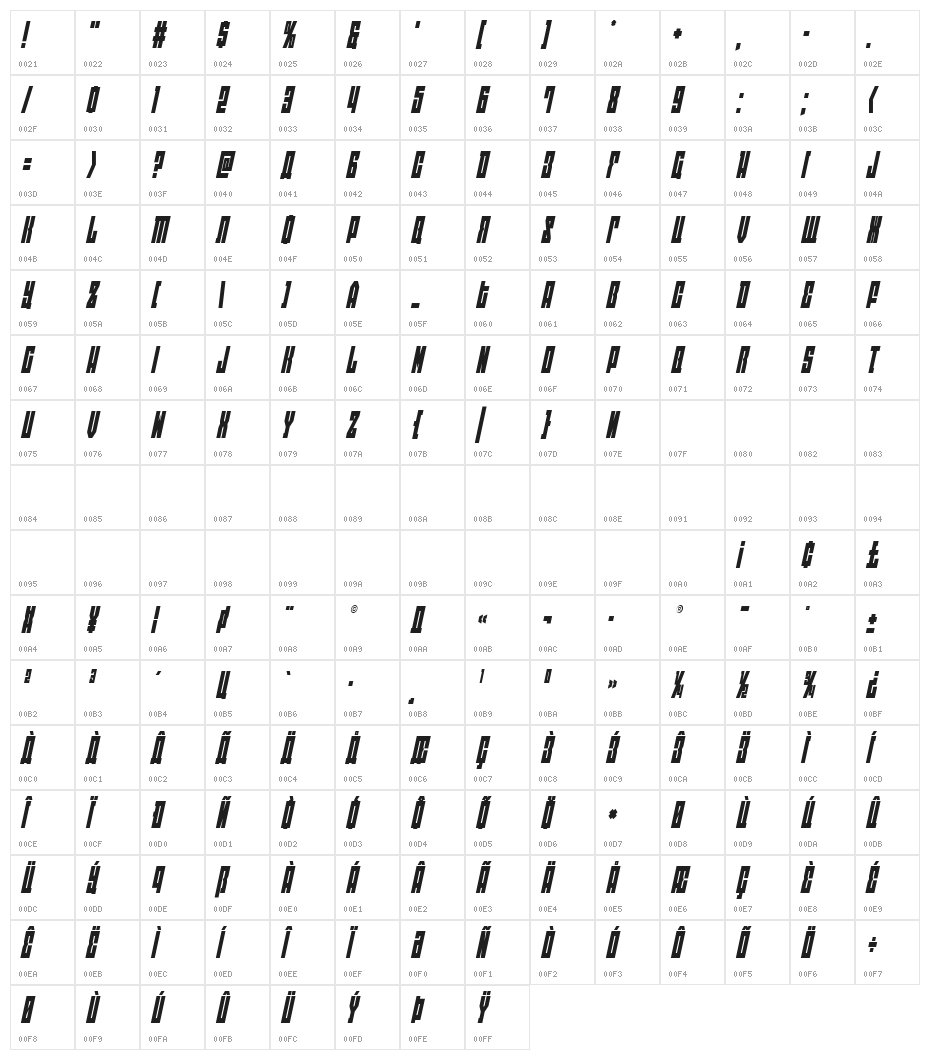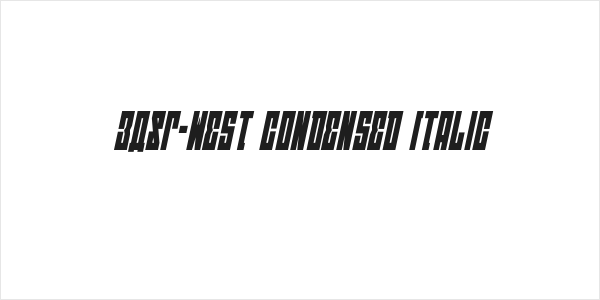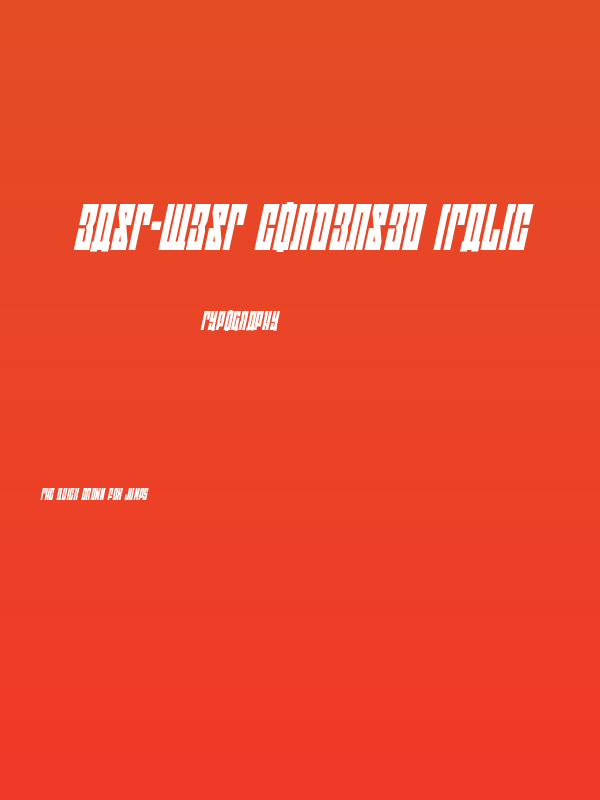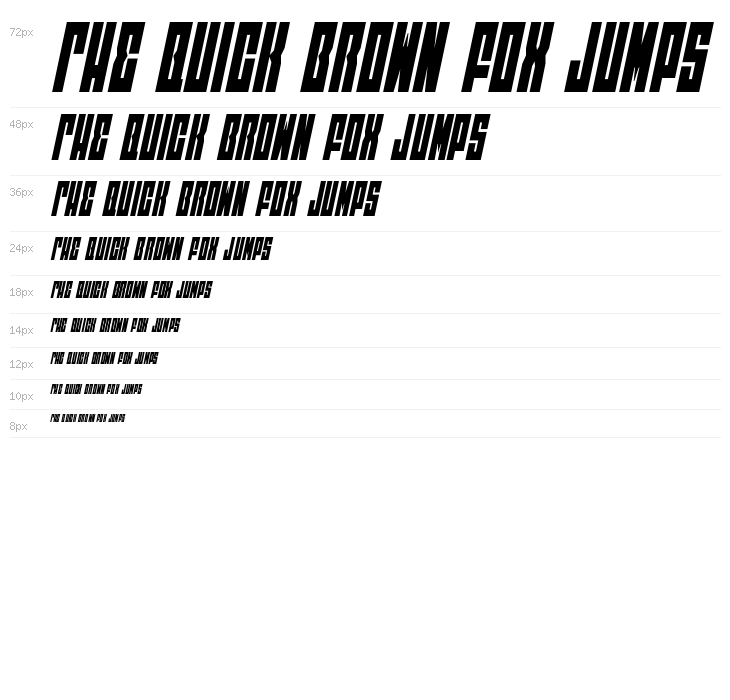
EAST-west Condensed Italic Font
EAST-west Condensed Italic Description
This font features a bold, condensed style with a distinct italic slant, giving it a dynamic and energetic appearance. The uppercase and lowercase letters are designed with sharp angles and a strong geometric influence, creating a sense of movement and urgency. The numbers and special characters maintain this aesthetic, ensuring consistency across all glyphs. The condensed width allows for efficient use of space, making it ideal for impactful headlines and titles. The high contrast in stroke thickness adds to the boldness, enhancing its visibility and readability from a distance.